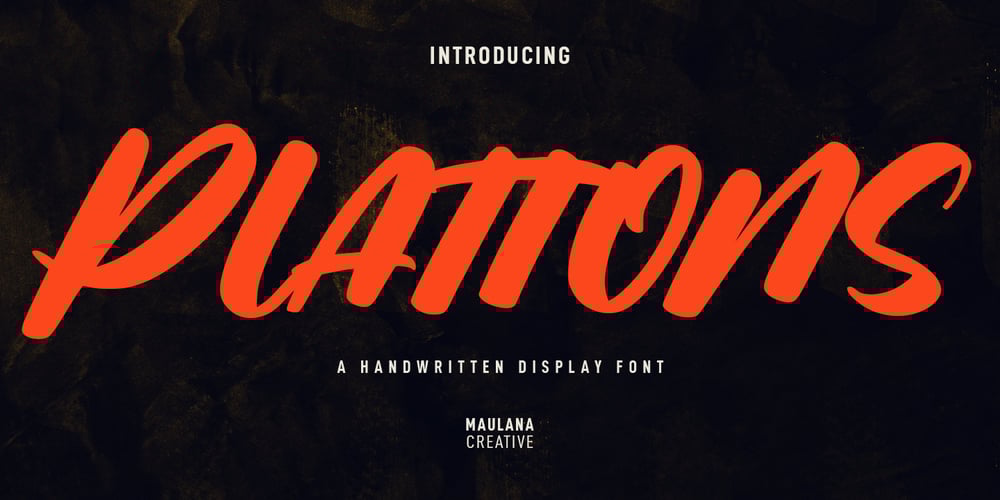
Plattons Font Family was designed by Gilang Maulana and published by Maulana Creative. Plattons contains 1 styles and family package options. Plattons is a slanted handwritten display font. With bold stroke, fun character with a bit of ligatures. To give you an extra creative work. Plattons font support multilingual more than 100+ language. This font is good for logo design, Social media, Movie Titles, Books Titles, a short text even a long text letter and good for your secondary text font with sans or serif. Make a stunning work with Plattons font. Cheers, Maulana Creative